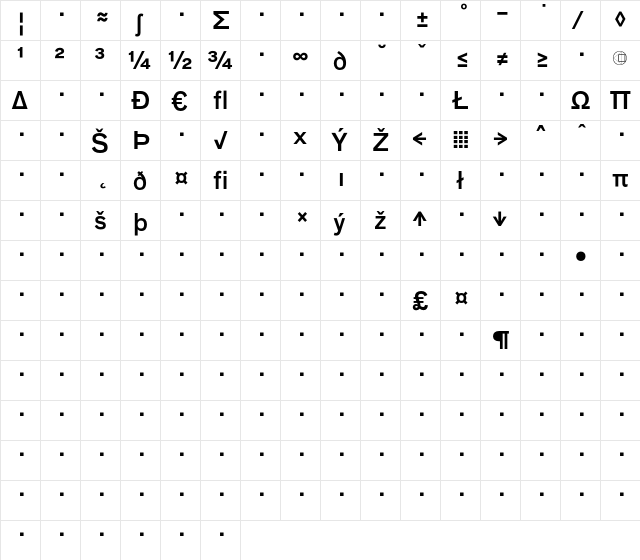
BauTF-MediumExpert Regular
Design Context for BauTF-MediumExpert Typeface
BauTF-MediumExpert offers clean, dependable letterforms without strong stylistic allegiance, making it a practical choice for designers who need flexibility.
Pro Tip: Use BauTF-MediumExpert in both headline and body roles to test its range before committing to a single application.